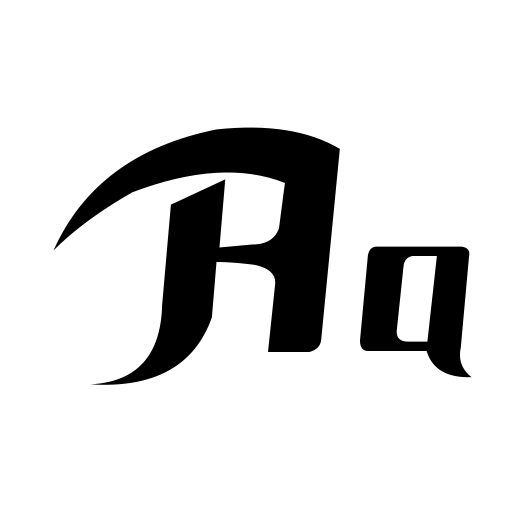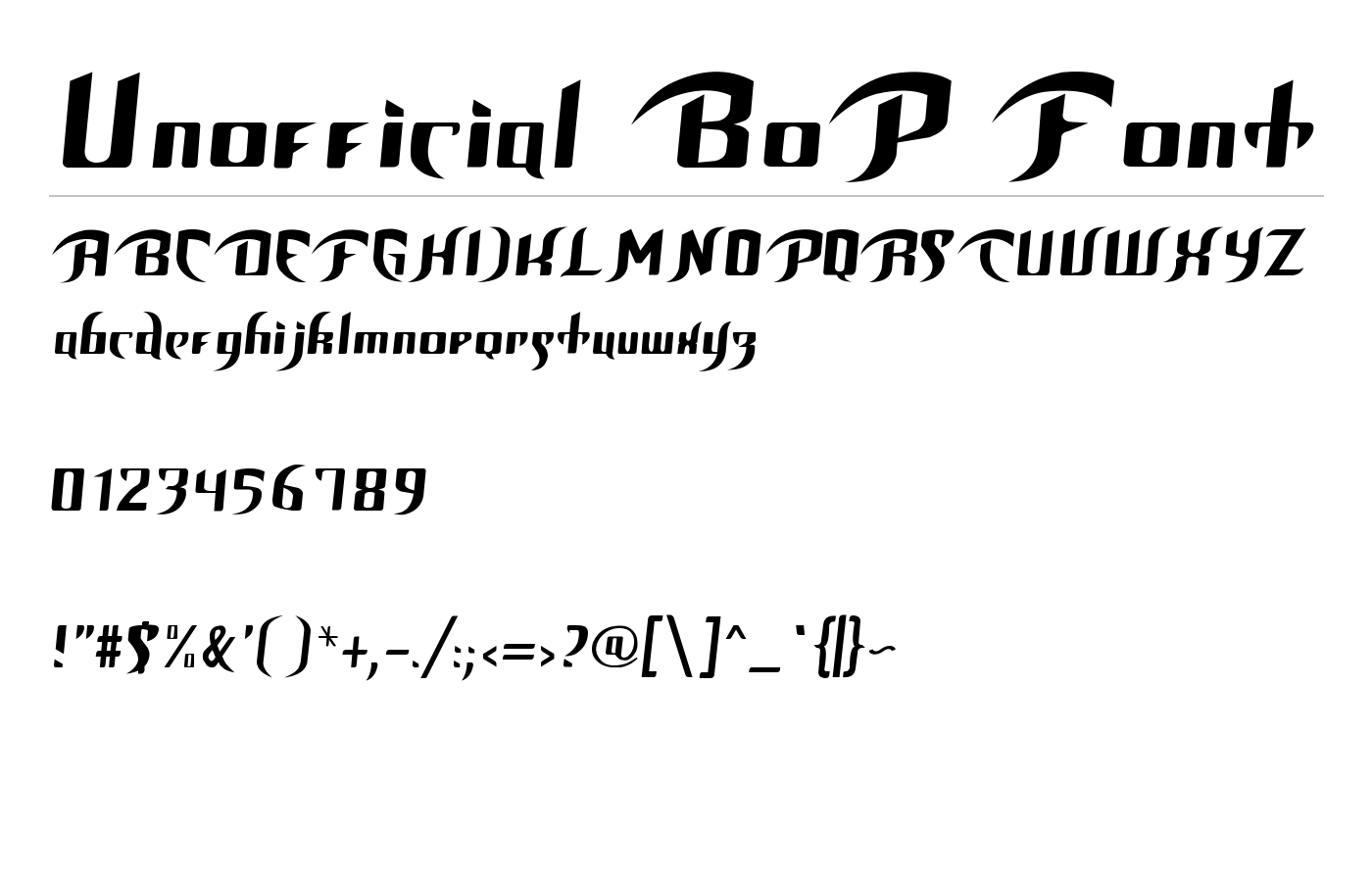
Unofficial BoP Font is a dynamic, angular sans serif with a futuristic and slightly calligraphic flair, featuring sharp, strong strokes and a narrow, condensed width that gives it a distinctive, energetic personality. Its unique letter shapes, such as the stylized uppercase Q tail and the dramatic curves in letters like B and P, make it perfect for bold headlines, logos, and branding projects where a modern, edgy look is desired. This font works well for designs that seek to convey innovation and motion, especially in technology, sports, or entertainment contexts.
Unofficial BoP Font
About Unofficial BoP Font
| Designer | High-Logic - Erwin Denissen 1999 |